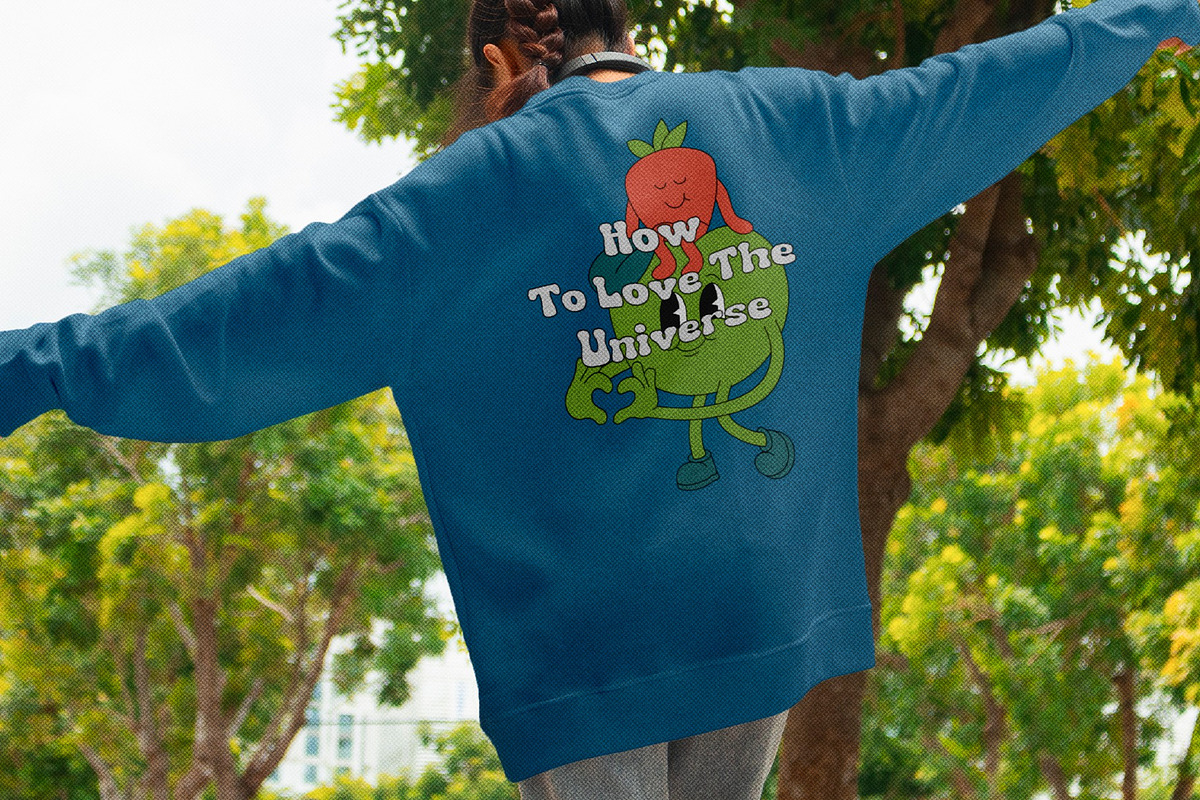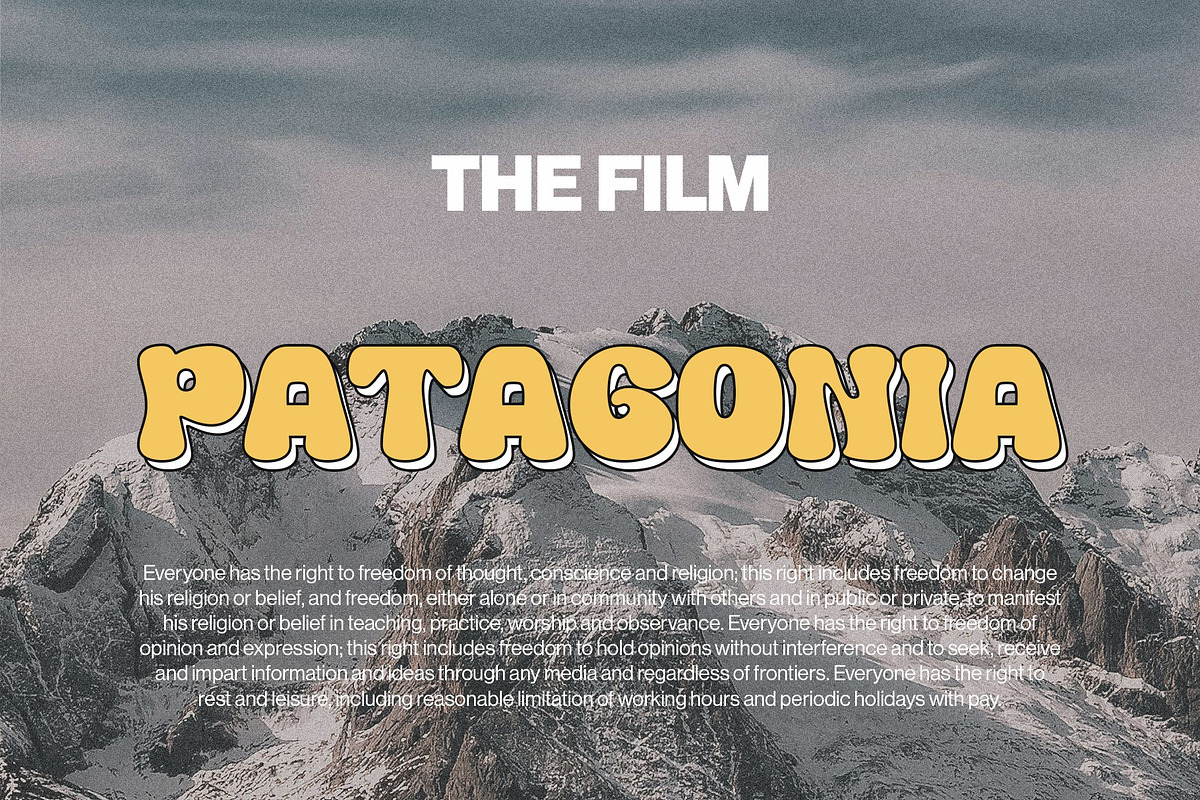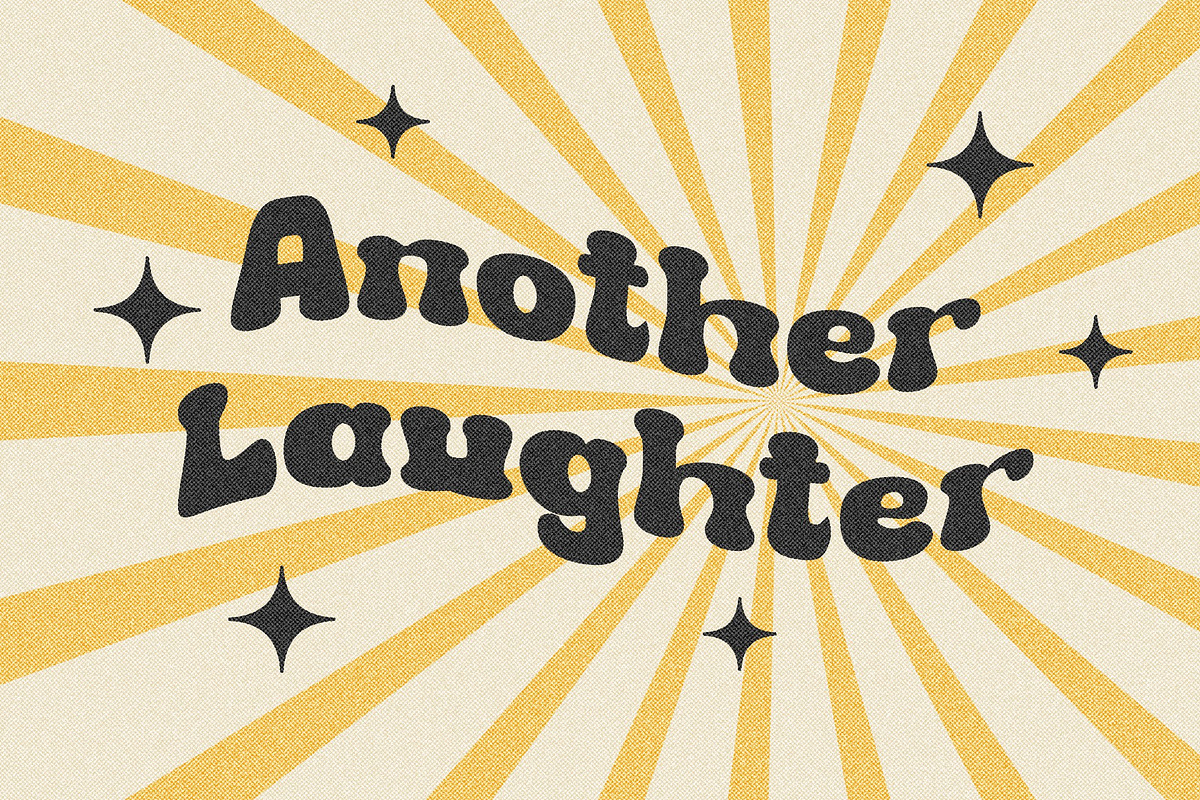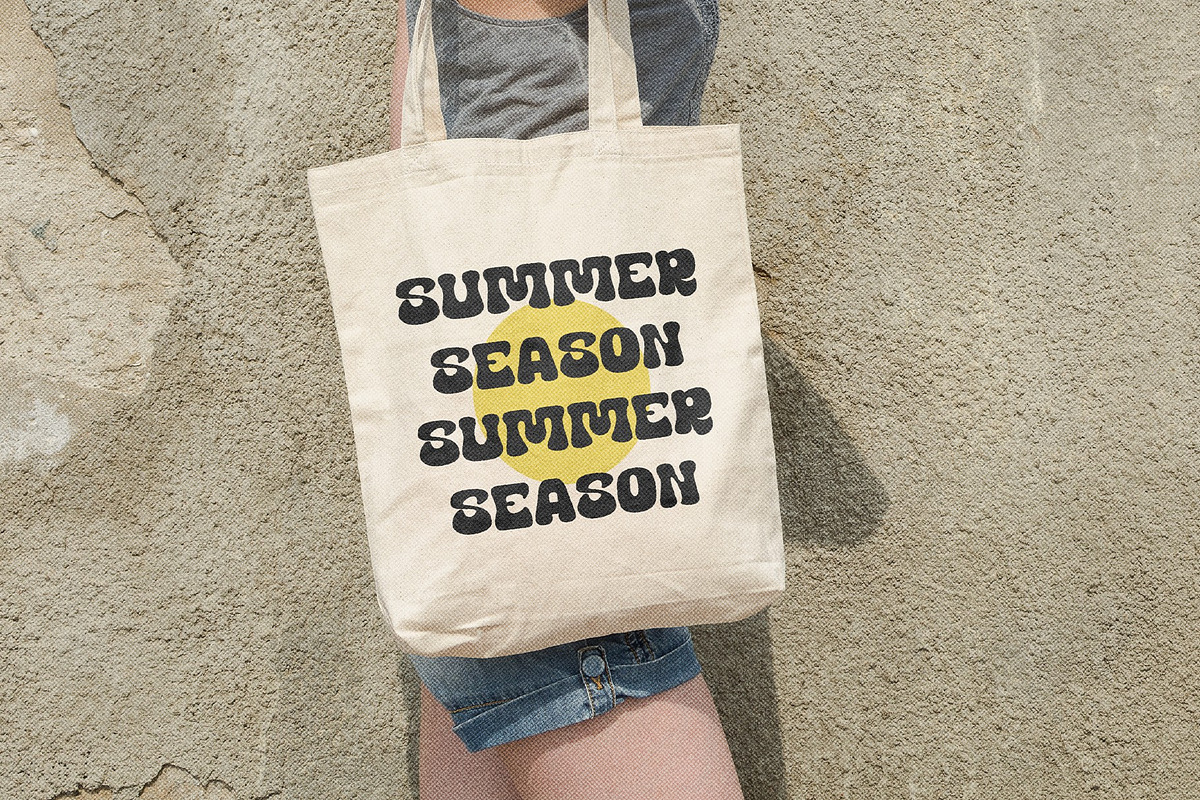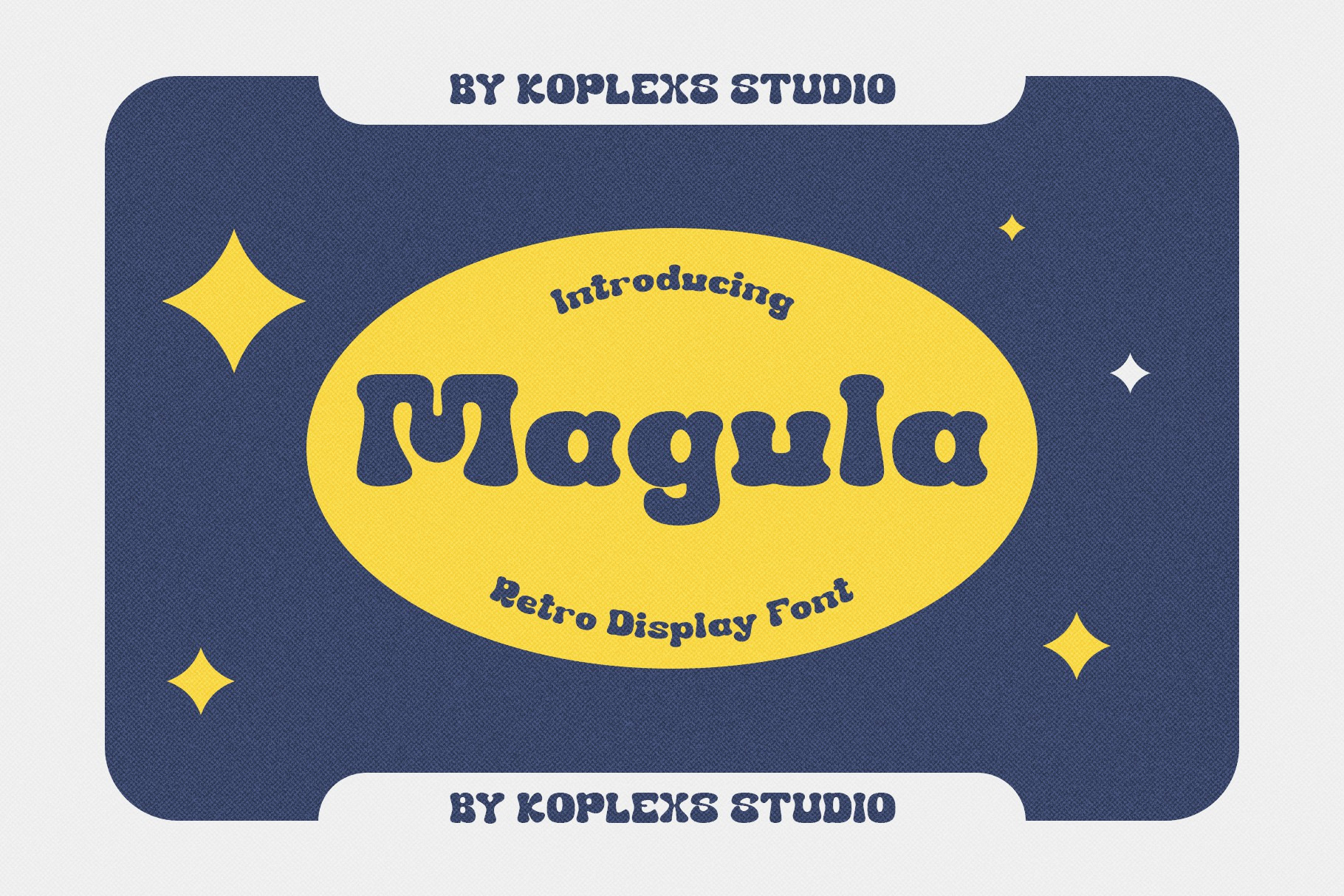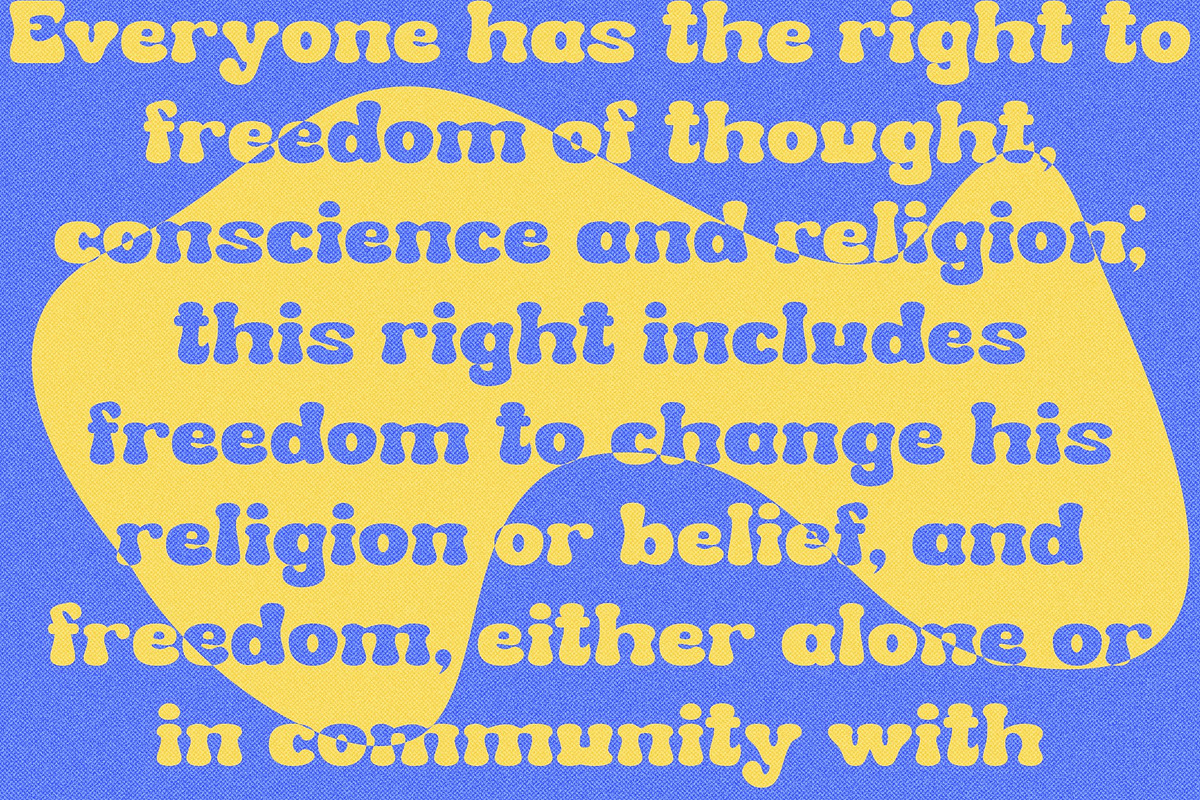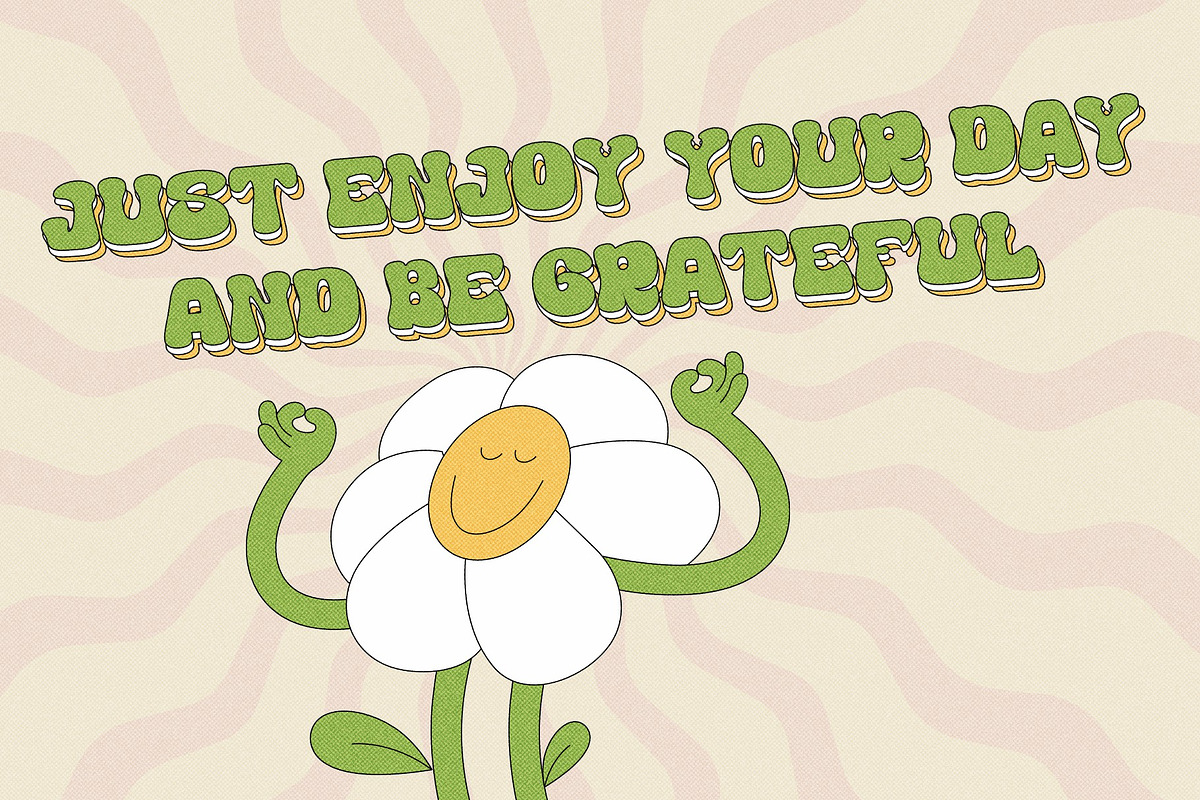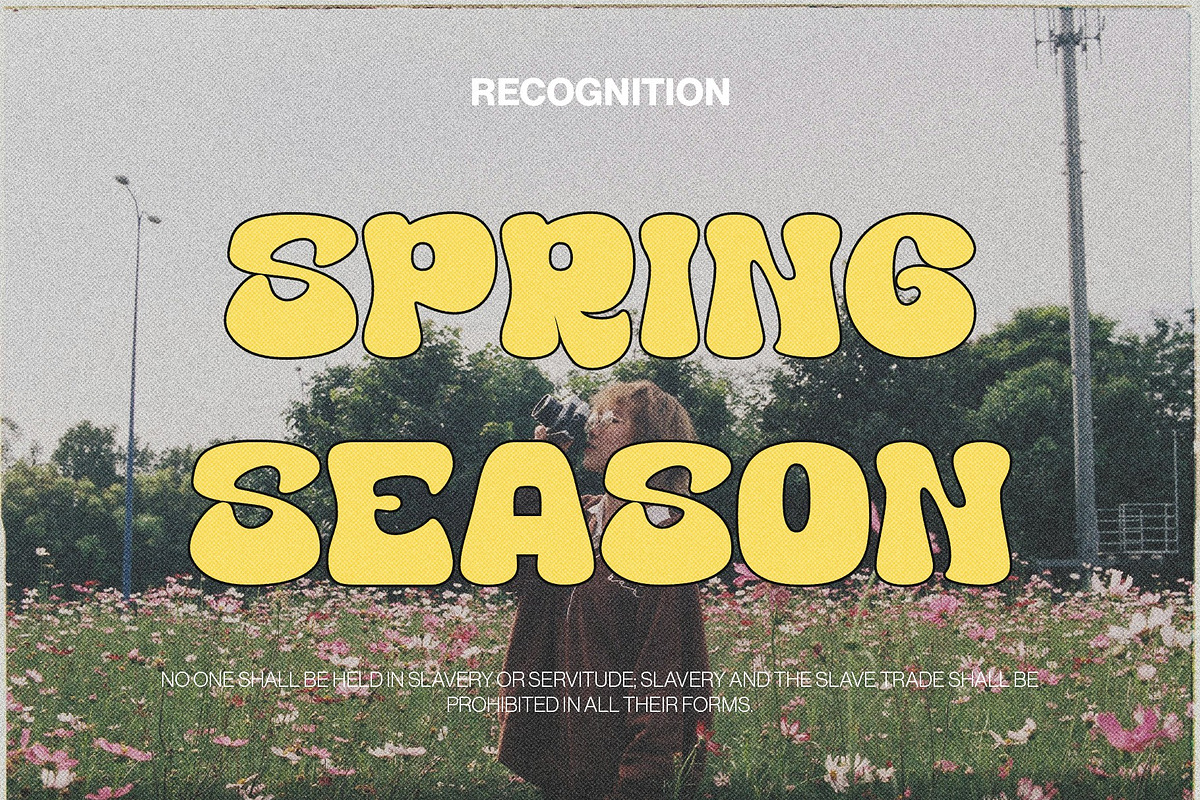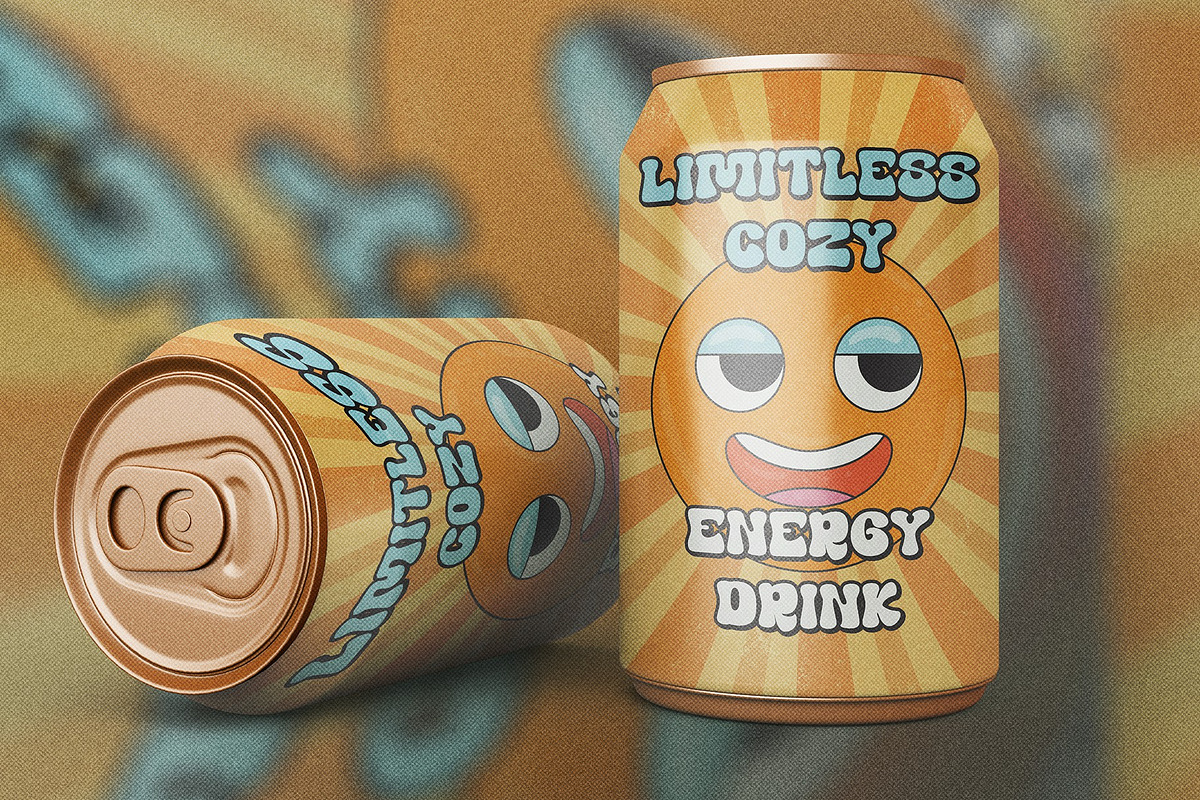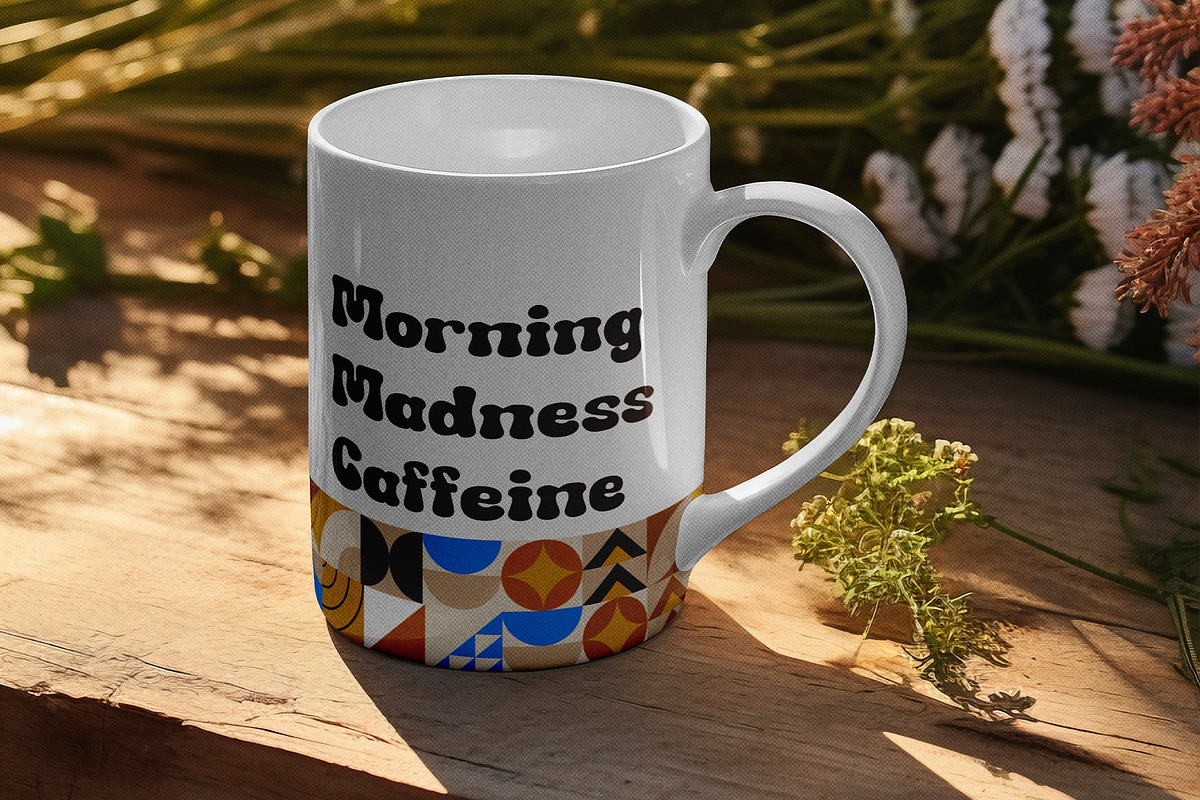
Megula - Retro Display Font
Megula - Retro Groovy Font
Megula is a retro groovy font perfect for bringing the 60s and 70s vibe to your design projects. Inspired by vintage typography styles, Megula combines curvy, playful letterforms with modern design elements, creating a unique and captivating look.
Megula is ideal for various creative projects like posters, flyers, invitations, branding, logos, and web design. With its strong retro vibe, this font is also perfect for decorating shops, cafes, or vintage-themed events.
- Authentic Retro Design: Megula delivers a strong retro feel with its curvy and dynamic letter shapes, ideal for designs seeking a nostalgic touch.
- Variety of Styles: Available in various styles, including regular, bold, italic, and bold italic, offering flexibility in its application.
- Unique Characteristic: Each letter is meticulously crafted, ensuring every character appears unique and harmoniously within text compositions.
- Multilingual Support: Megula supports a wide range of international characters, making it usable for various languages worldwide.
- Alternate Features
- Ligature Features